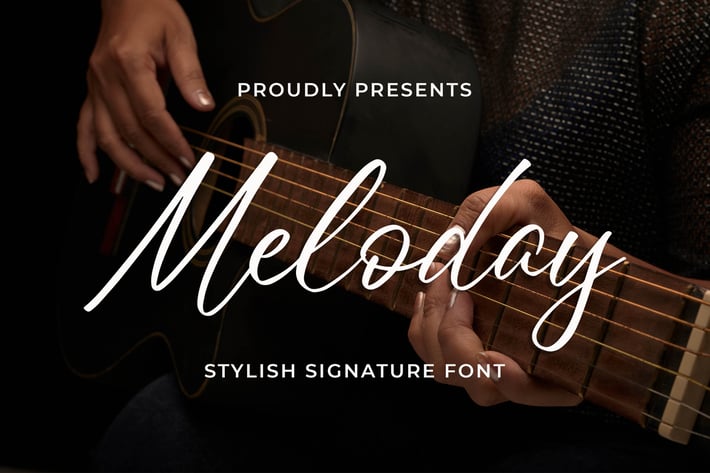
Meloday - Stylish Signature Font
Introducing of our new product the name is Meloday Stylish Signature Font. Meloday inspired by clean brush style this font is a fun theme very good for signature, poster, fashion, wedding, branding etc
MULTILINGUAL ACCENT :
ŽžŠŒšŸÀÁÂÃÄÅÆÇÈÉÊËÌÍÎÏÐŁÑÒÓÔÕÖØÙÚÛÜÝßàáâãäåæçèéêëìíîïłñòóôõöøùúûüýÿ